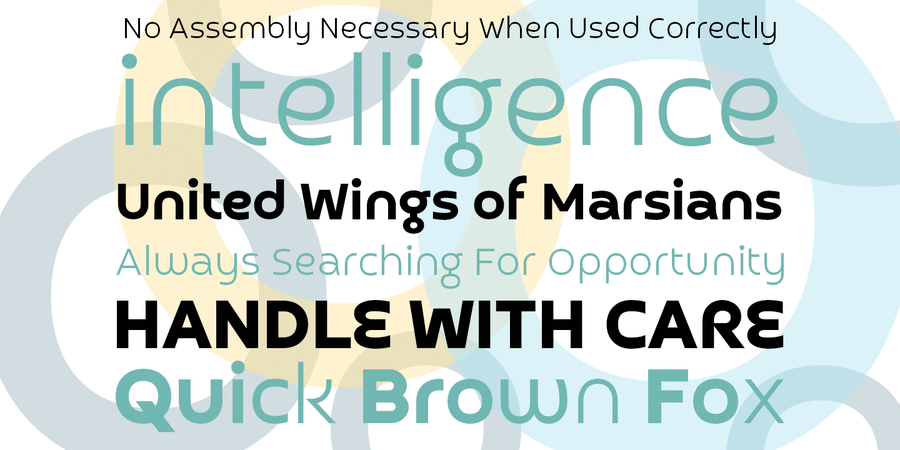
Croogla 4F is a minimalistic geometric modular sans serif with technogen character and playful elements. Typeface was designed by Sergiy Tkachenko in 2014-2018.
flexible, flat, futuristic, laconic, urban, smooth, crisp, elementary, round, interesting, original, friendly, comfortable, ironic, clean, clear, expressive, cool, party, festive, glad, thin, easy, cold, fresh, chilly, voiced, dynamic, modern, student, night, accurate, solid, reliable, industrial, technogenic, schematic, engineering, urbanistic, automatic, logical, machine, steel, iron, notable, strong, playful, active, heavy, powerful, self-assured, ambitious, manly, cutting